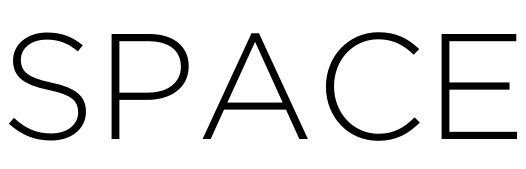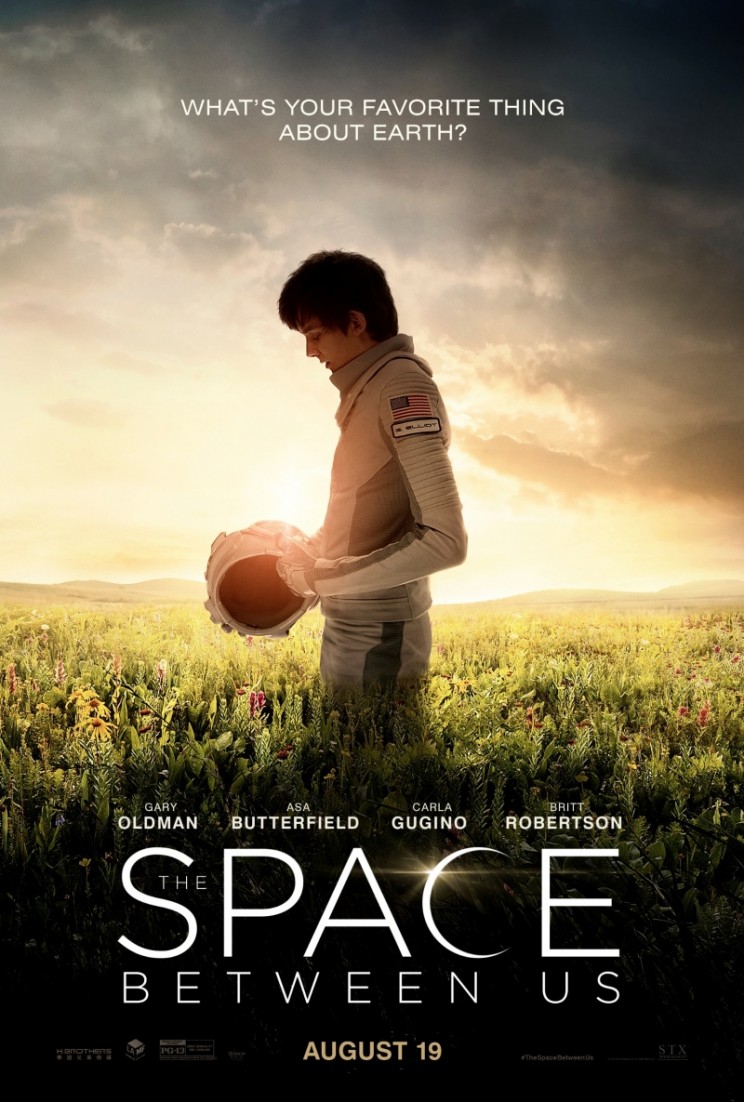
The Space Between Us Font
AdventureThe Space Between Us is a 2017 romantic science fiction film about a boy born on Mars who travels to Earth to search for his father and falls in love with a teenage girl.
The film title on the poster was likely created with the Gotham Light and Gotham thin fonts, a popular geometric sans-serif typeface designed by Tobias Frere-Jones in 2000. You can find more details about the Gotham font family here.